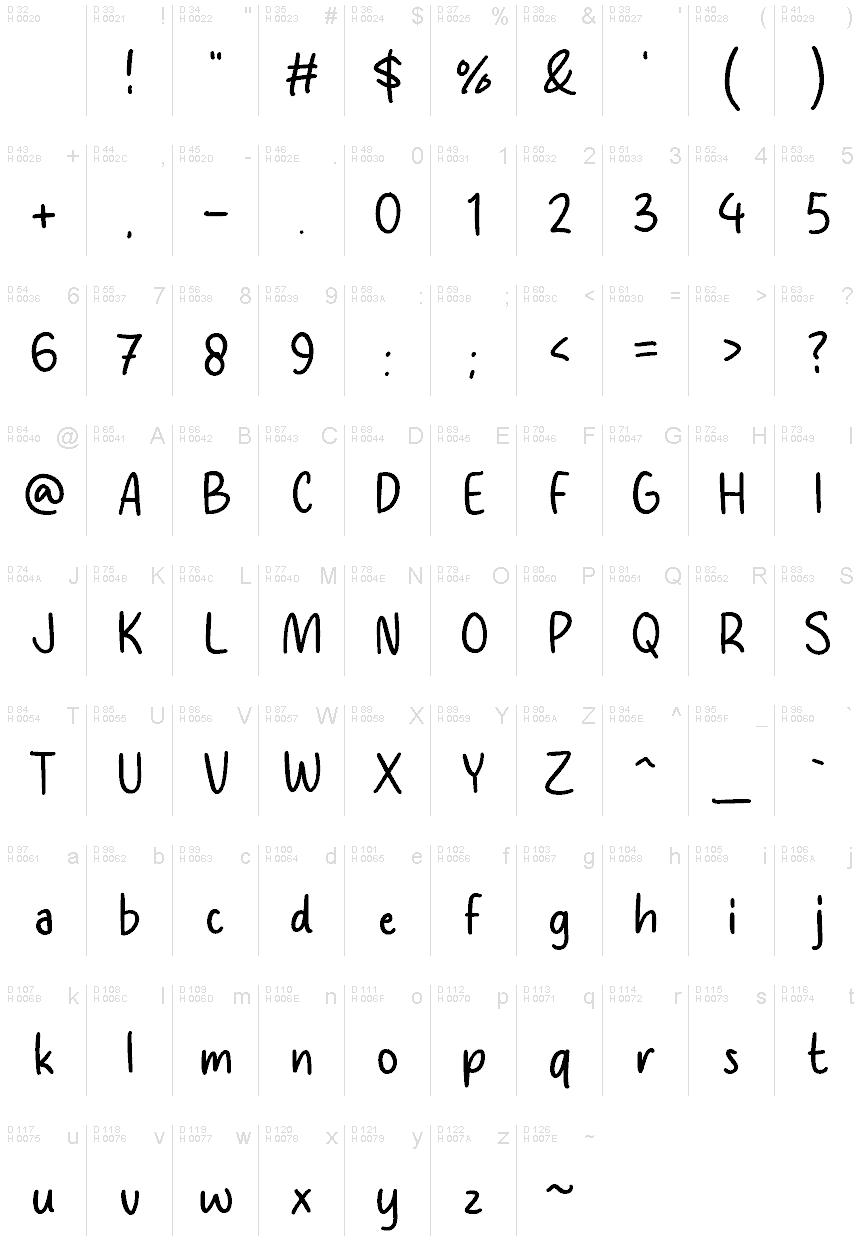
Salmon Season
Salmon Season font is a free handwritten font by MJType with whimsical letters that make designs more friendly, casual, modern, and approachable overall. The cheerful character of Salmon Season is enhanced by the slight slants in the lines and the size variations in each letter which make typography more interesting.
This versatile typeface can be used for fashion magazines, invitation cards, packaging decorations, branding projects, stationery design ideas, logos, labels or badges. Use it in video games and mobile apps as well as on web pages including blogs and e-commerce sites.